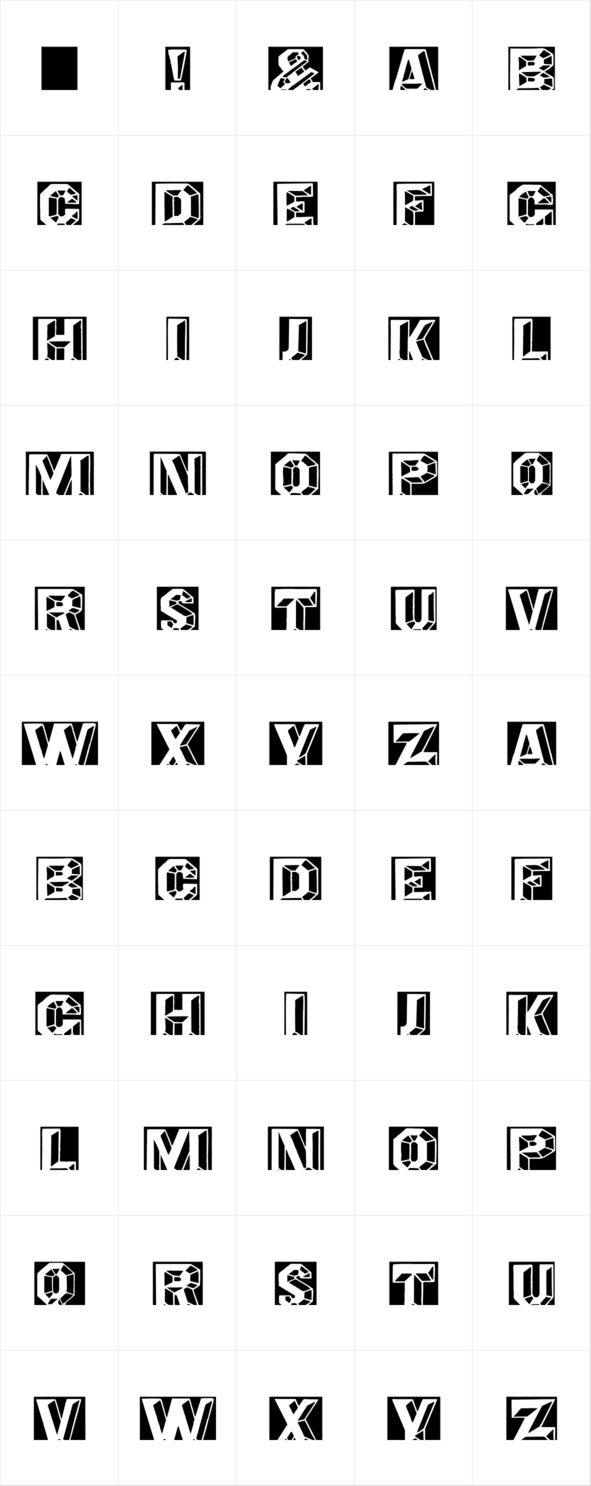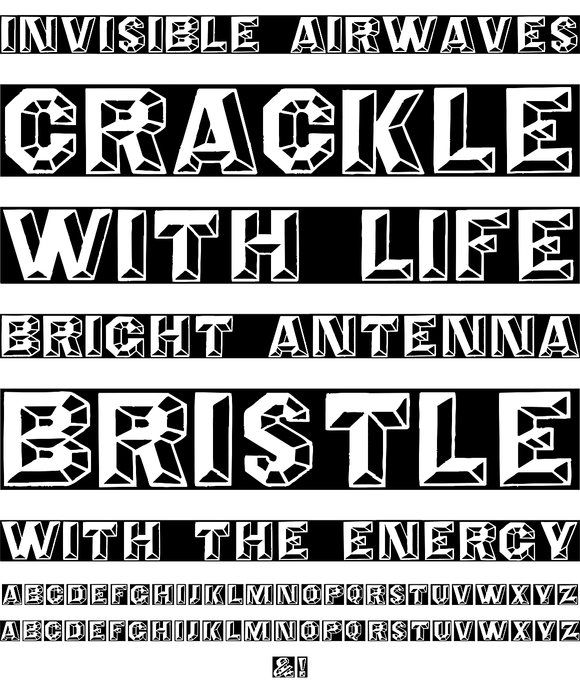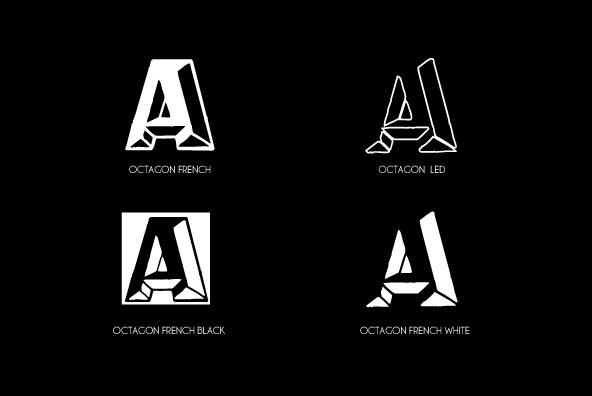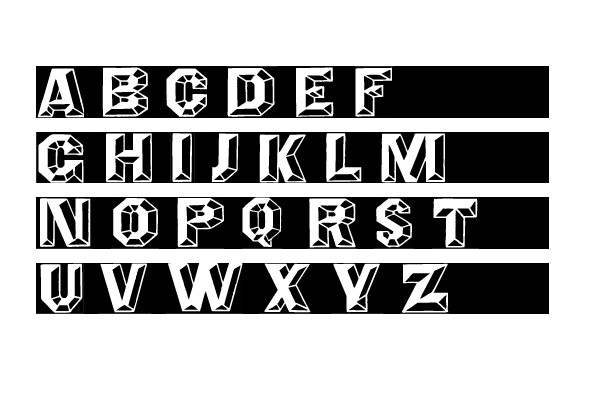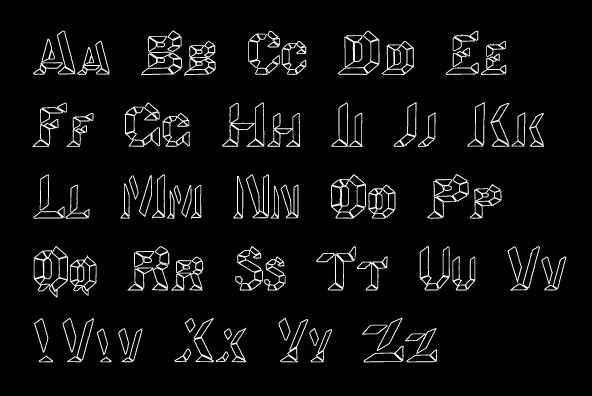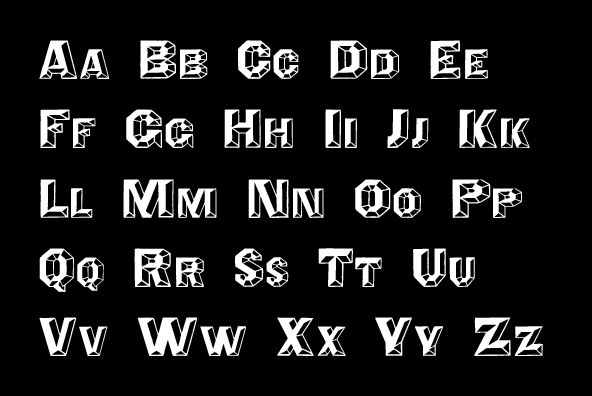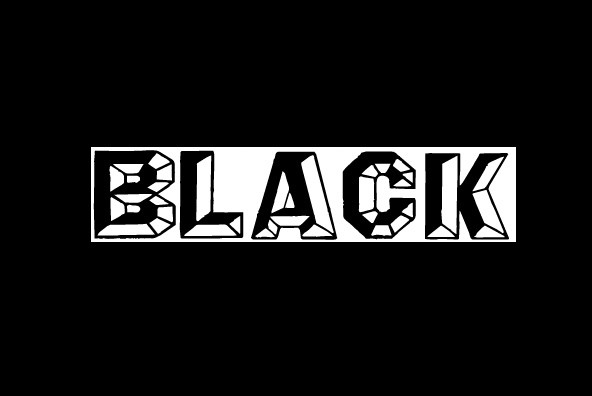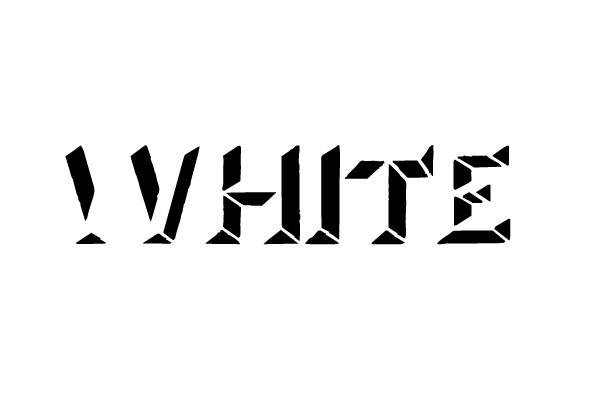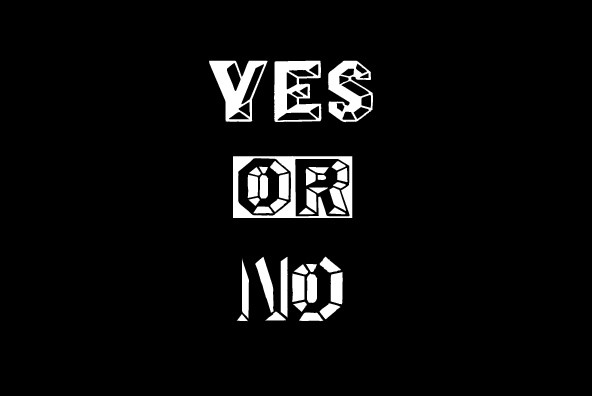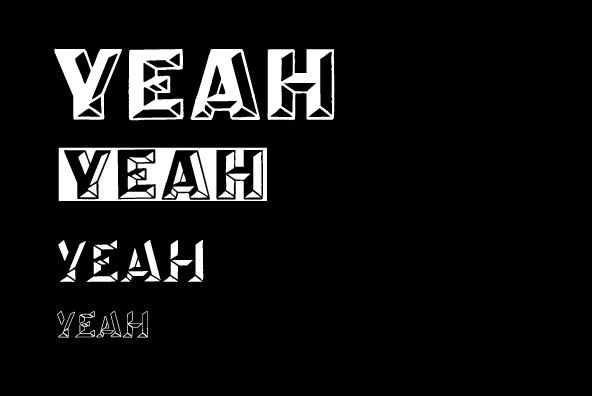
Octagon French
A classic font design remastered by the type foundry Intellecta Design. Distressed and antique, use this font in display purposes for a stylized type design. Contains a limited amount of letter designs, works best when used for headers and set manually.